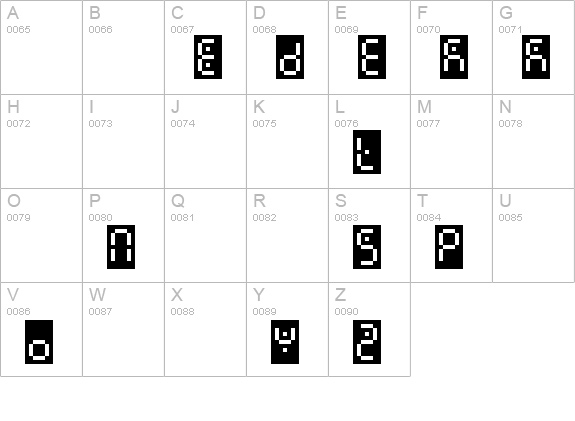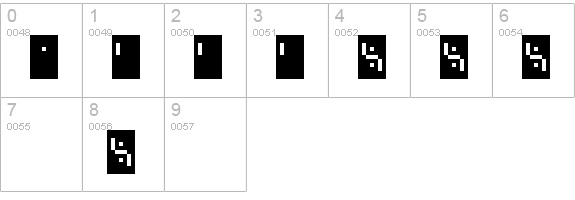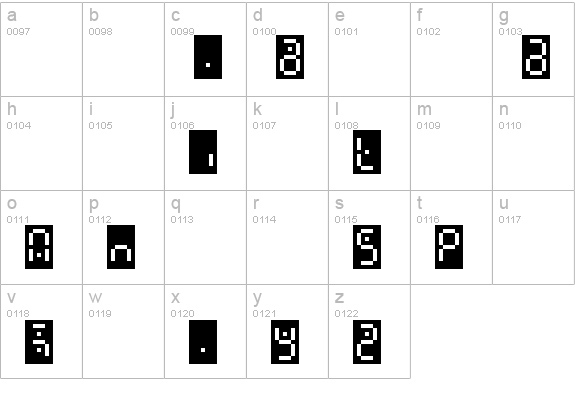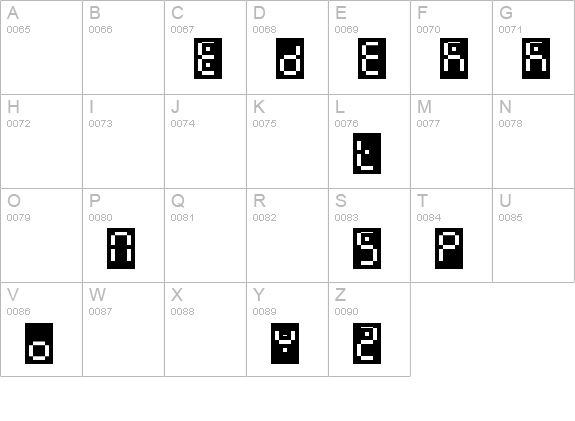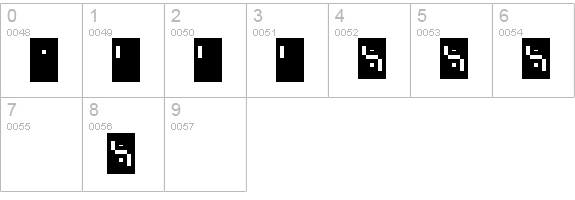
Introducing Readout-OneBackExpert, a sleek and modern font that is perfect for adding a touch of sophistication to your designs. With its clean lines and unique letterforms, this font is sure to catch the eye and make a lasting impression. But what sets Readout-OneBackExpert apart from other fonts? It's the fact that it is not only visually stunning, but also freely available to download at FontsMarket.com. Yes, you read that right - this incredible font can be yours at no cost! Whether you're designing a logo, creating a poster, or crafting a website, Readout-OneBackExpert will elevate your project to new heights. Its versatile nature makes it suitable for a wide range of applications, ensuring that your designs will always stand out from the crowd. The attention to detail in Readout-OneBackExpert is truly remarkable. Each character has been meticulously crafted to create a harmonious balance between legibility and aesthetic appeal. The generous spacing allows for easy readability, while the carefully designed curves and angles add a touch of elegance. With Readout-OneBackExpert, you have the freedom to express your creativity without any limitations. The font's extensive character set includes uppercase and lowercase letters, numerals, punctuation marks, and special symbols, ensuring that you have everything you need to bring your vision to life. So why wait? Discover the power of Readout-OneBackExpert today and unlock a world of design possibilities. Download this remarkable font for free at FontsMarket.com and let your imagination run wild.